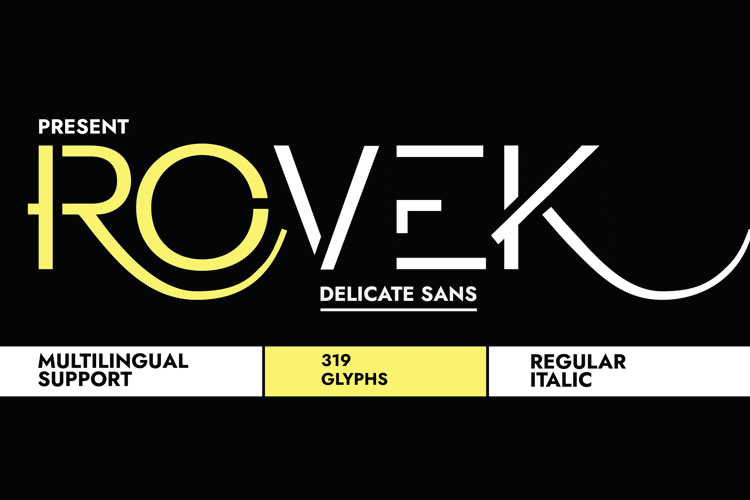
Rovek 2.0 Font
π¨ Font Name: [Rovek 2.0] by Minimalist Art Studio
π¨ Font Description: Rovek 2.0 is a modern stencil sans serif typeface with elegant ligatures, multilingual support, and 319 glyphsβperfect for branding, packaging, tech visuals, and bold editorial design.
β Complete Latin set + multilingual diacritics
β Alternates, stylistic sets & ligatures
β Numbers, small caps, and extended punctuation
β Bonus italics and family styles